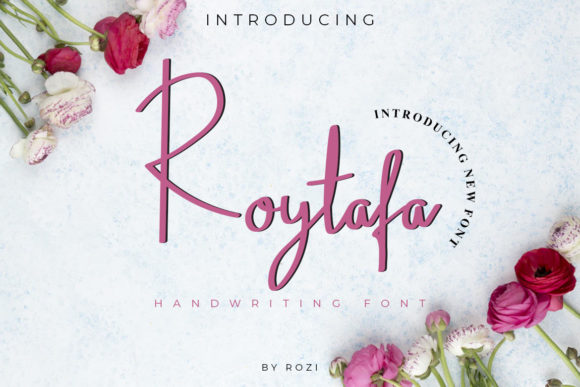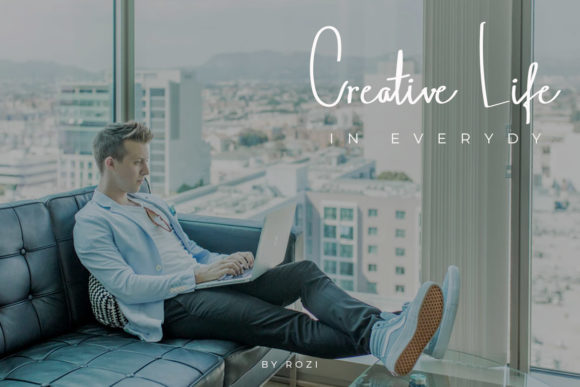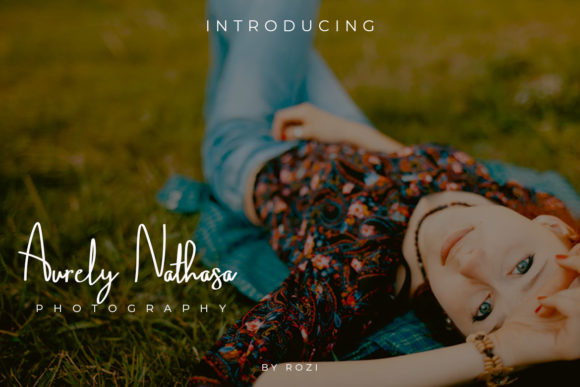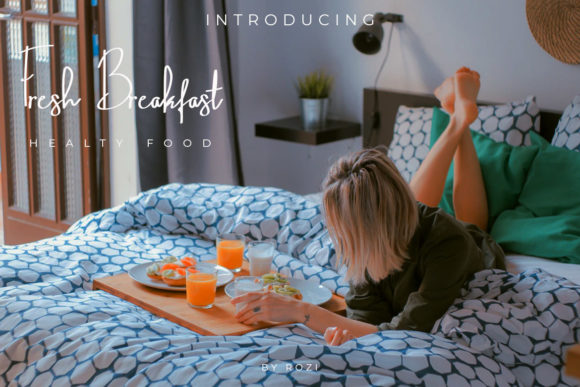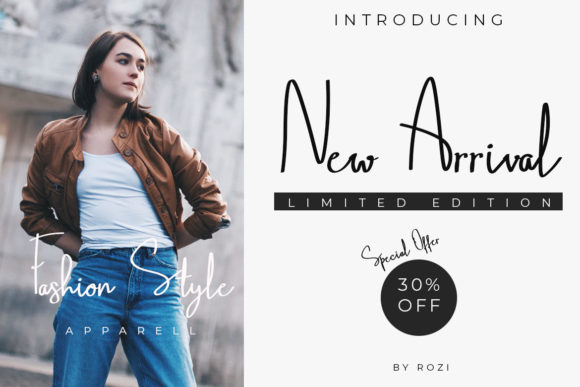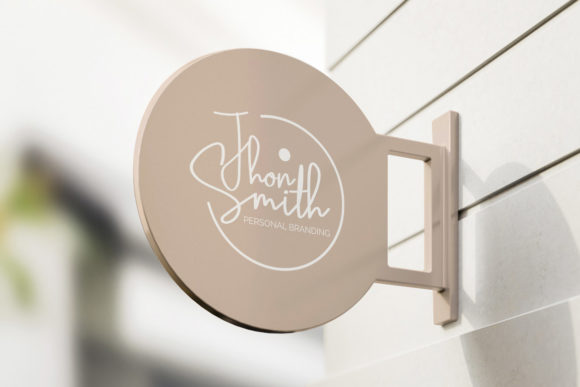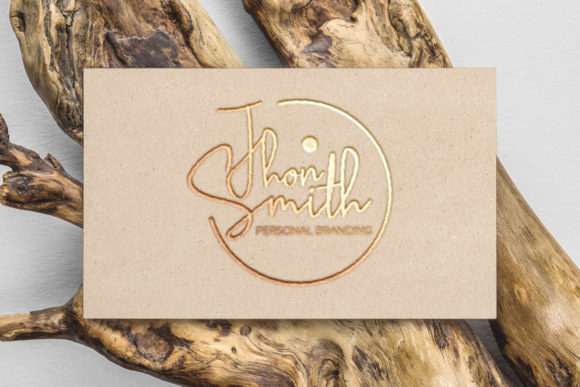
Roytafa Font
About Roytafa Font
Roytafa is a playfully modern script with gorgeous swashes and a dynamic feel. Use it to add a contemporary touch to any design idea!